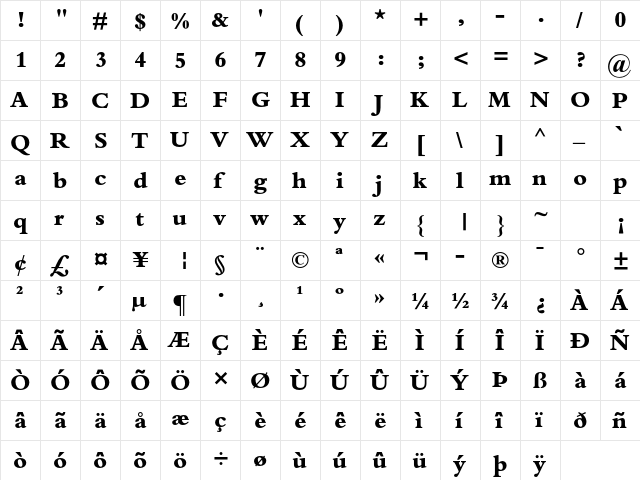
Bembo Std Extra Bold Font Preview
Bembo Std Extra Bold
Bembo Std Extra Bold Font Details
| Style | Extra Bold |
| Designer | Stanley Morison, Monotype Staff |
Design Context for Bembo Std Typeface
Bembo Std is a composed and adaptable typeface that performs quietly and consistently across a wide range of design contexts. Its bold stroke weight gives it real presence on the page.